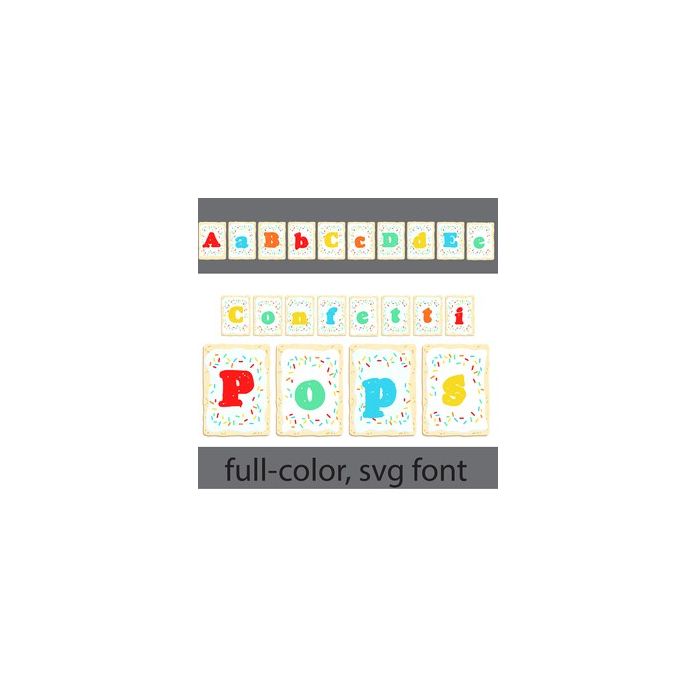
This full-color font features toaster pastries with bright colors. There is an alt case w/ additional colors you can access through your system or Silhouette's glyph map.